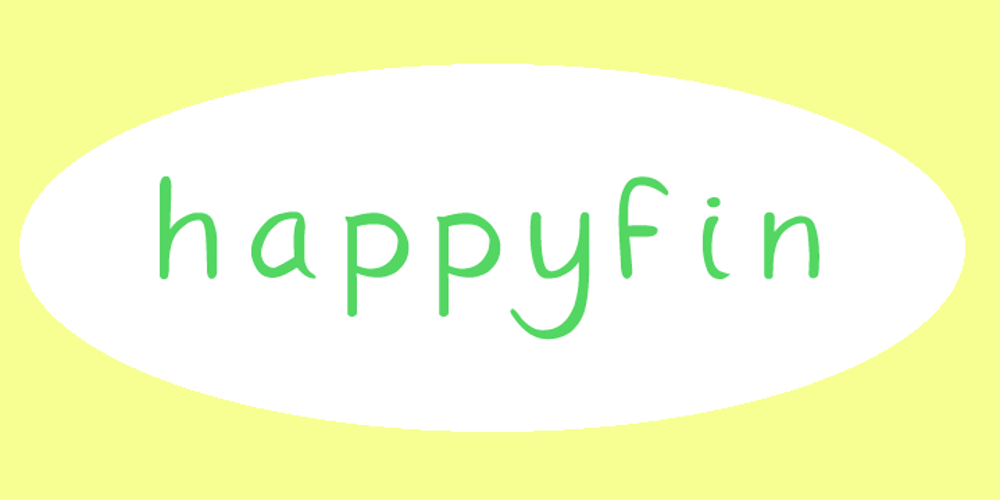
Happyfin Font Family was designed by Mark Nathan Willetts and published by MNW. Happyfin contains 1 styles and family package options. Happyfin is a sumptuous font based upon the free nature of a handwritten text, it balances the organic form with the necessary preciseness of a traditional typed font. With a smooth light hearted elegance, this font is perfect for designs involving organic produce and situations where a professional yet fun and friendly typeface is needed. The font has high readability level, and yet conveys a good deal of character and style within the simplest of forms.